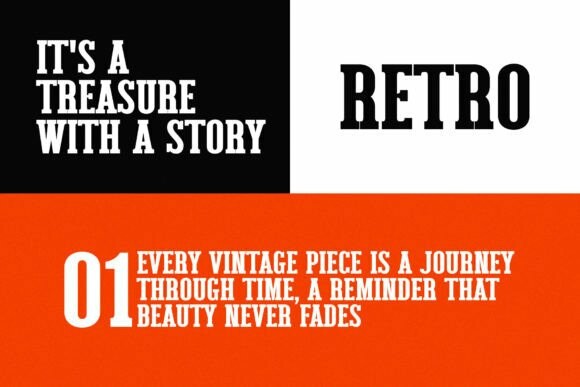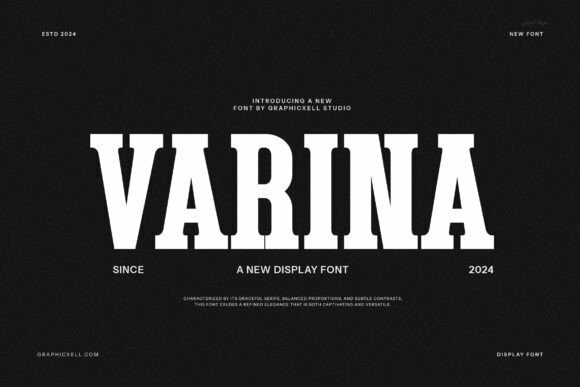
Varina Font
Designer: Graphicxell
Varina Font is a bold and eye-catching display font with thick, strong letters that have little “feet” at the ends. It’s great for titles, logos, and headlines because it stands out and is easy to read. The letters have a solid and blocky look, making them perfect for grabbing attention.